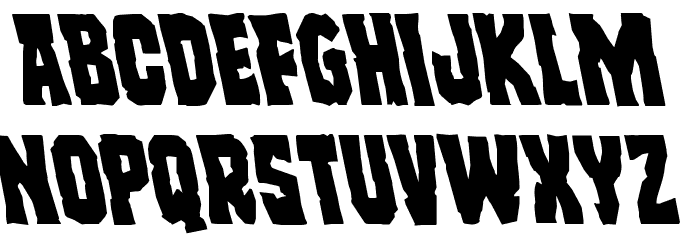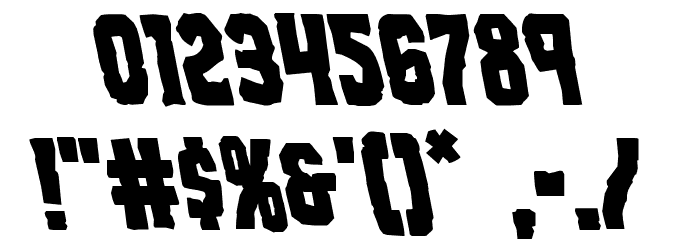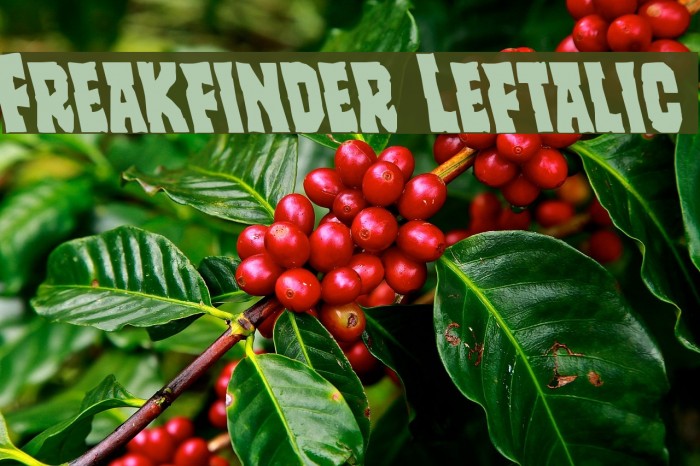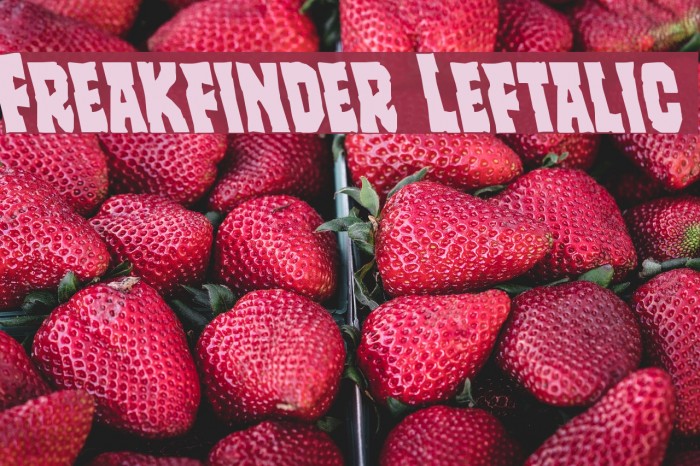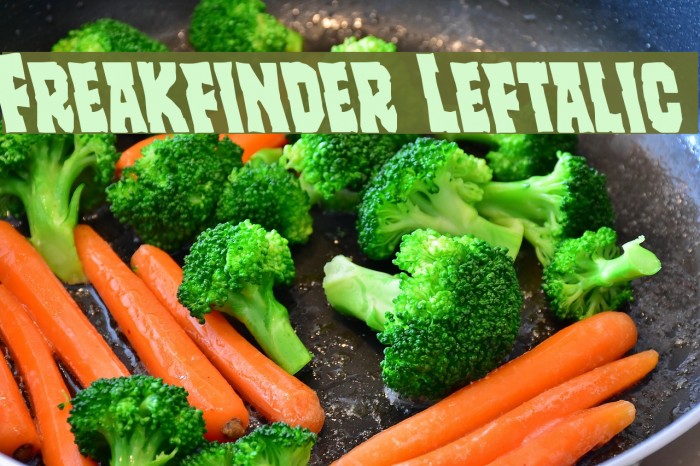
Freakfinder Leftalic Font
This font features a bold and jagged design, with each character appearing as if it has been roughly cut out or torn. The letters are heavily stylized, giving them a unique and edgy appearance. The uppercase and lowercase letters maintain a consistent style, with sharp angles and irregular edges that create a sense of movement and energy. The numbers and special characters follow the same design principles, ensuring a cohesive look across all glyphs. This font's distinctive style makes it stand out, perfect for projects that require a bold and unconventional aesthetic.
A bold, jagged font with an edgy, cut-out appearance.
- Proposed Projects: Ideal for horror-themed posters, album covers, or any project needing a dramatic and unconventional look.
- Use Case: Headlines, Posters, Logos